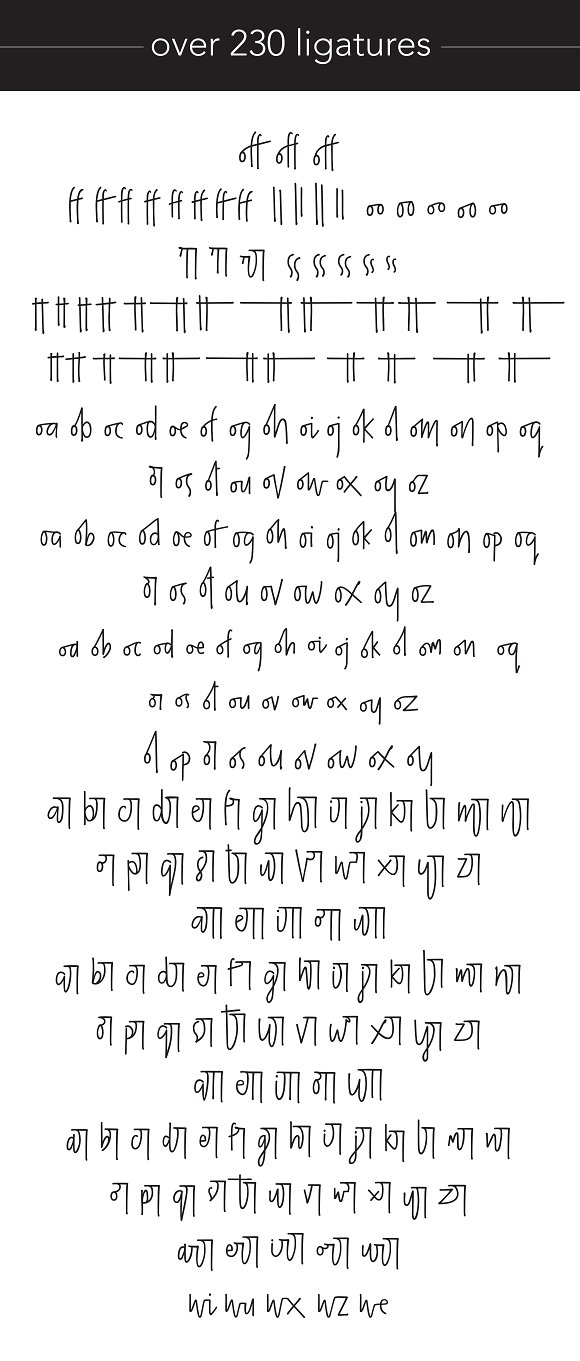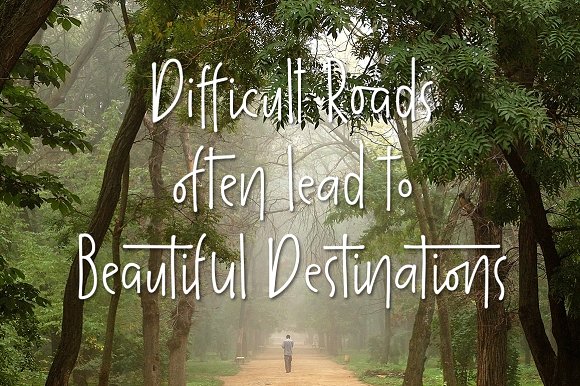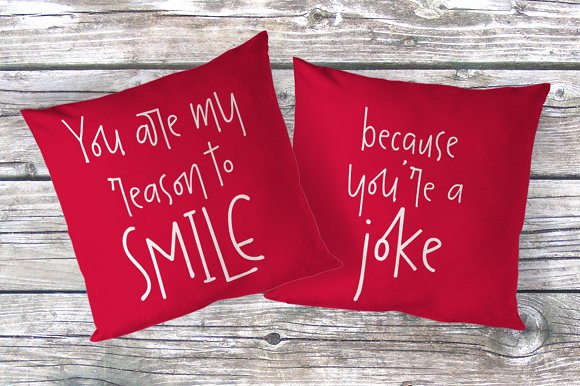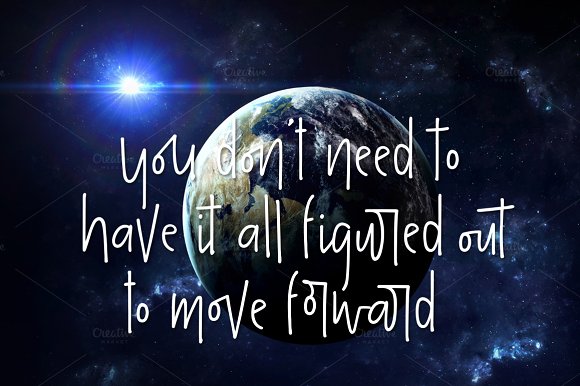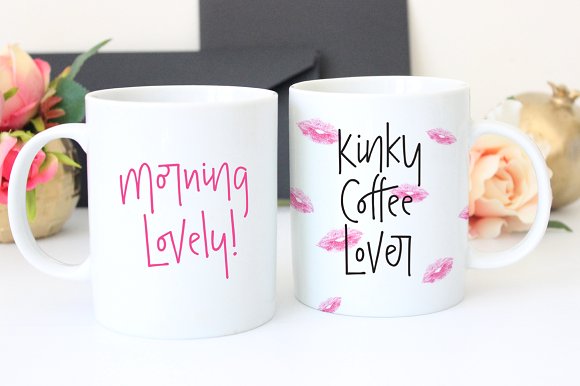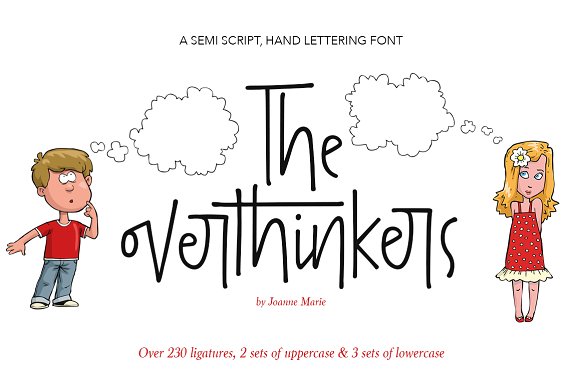
The Overthinkers Script Font
The overthinkers is a semi script hand lettering font for all of your hand lettering designs!
With two sets of uppercase glyphs, three sets of lowercase and over 230 ligatures no two words will be same! So your designs will truly look hand lettered.
With so much choice be careful not to overthink your designs ;).
This font is perfect on it’s own or you may like to use it with your existing hand lettering fonts. Go ahead and try it out – it’ll compliment any design! It’s perfect for merchandise and food packaging, book designs, logos and much more.